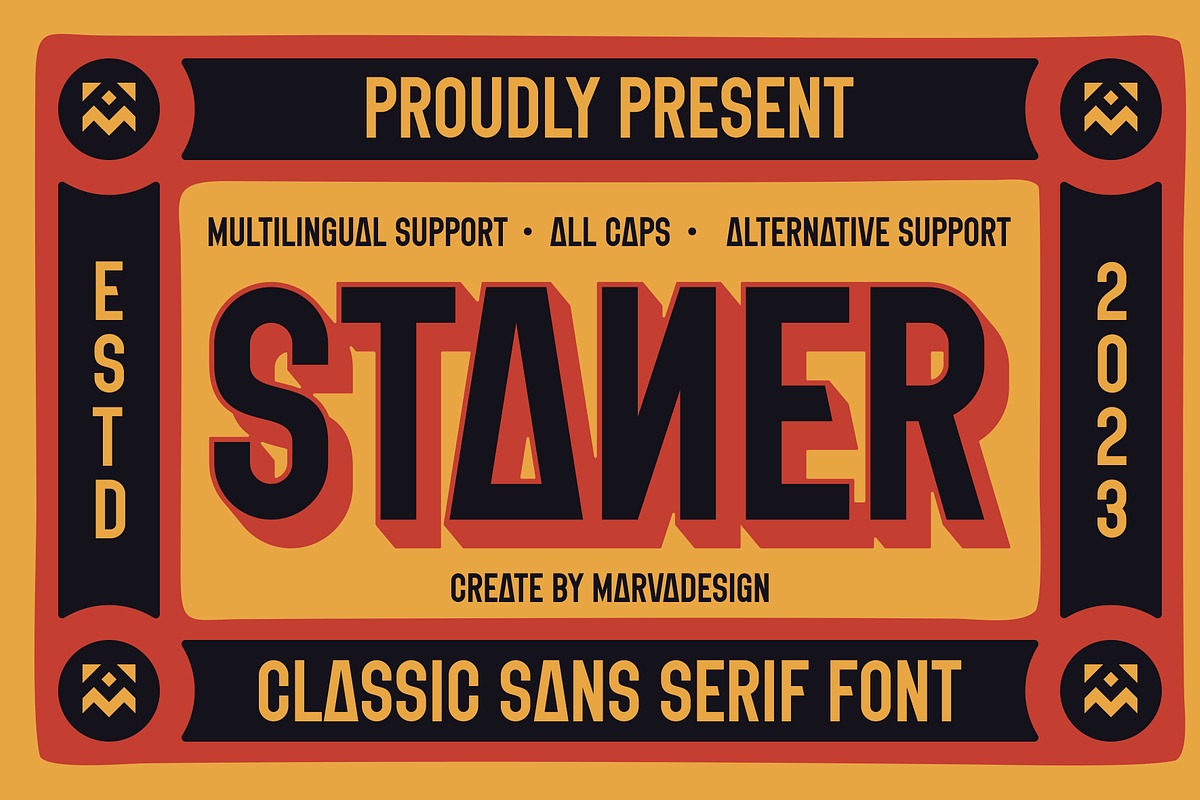
Staner Font
Staner Font is a professionally designed typeface that delivers clarity, structure, and consistent performance across various design applications. Staner Font – Modern Font is a bold and authentic display font. The font is suitable for any branding project like logo, Template Design, Product and many more. outstanding in a wide range of contexts.